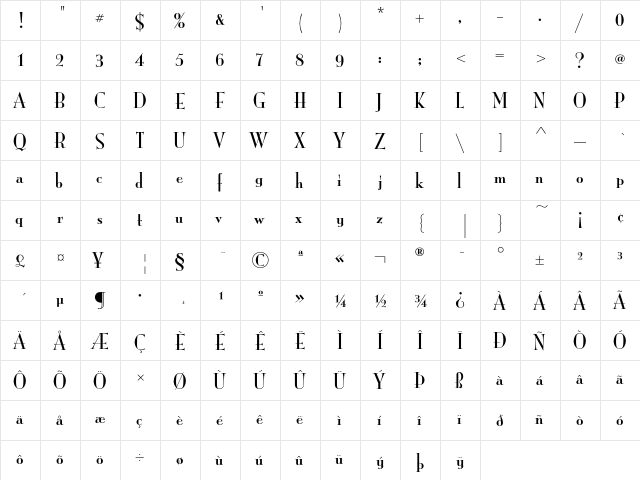
MonaLisaEF Solid
Design Context for MonaLisaEF Typeface
MonaLisaEF offers clean, dependable letterforms without strong stylistic allegiance, making it a practical choice for designers who need flexibility.